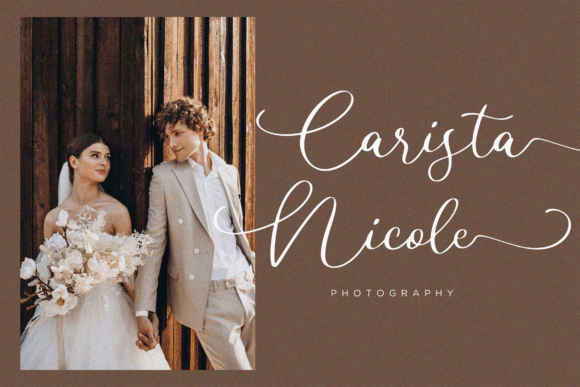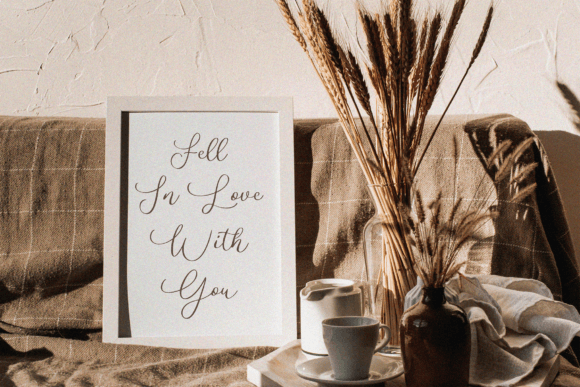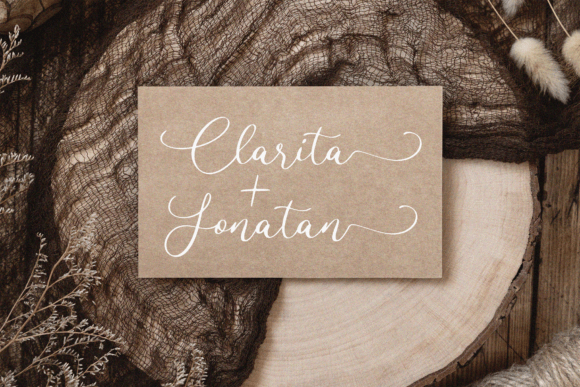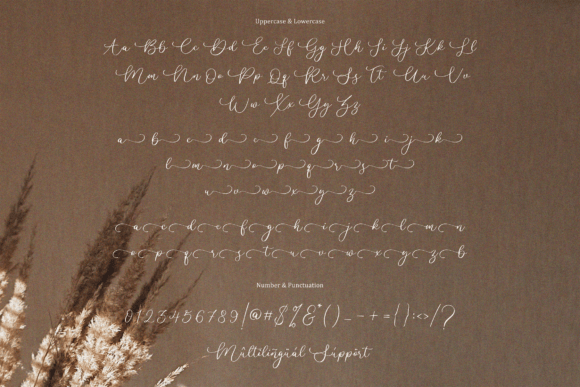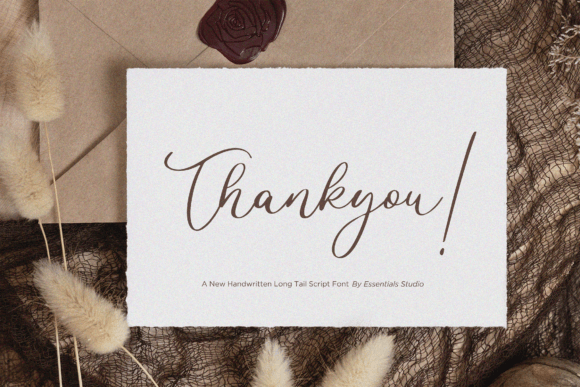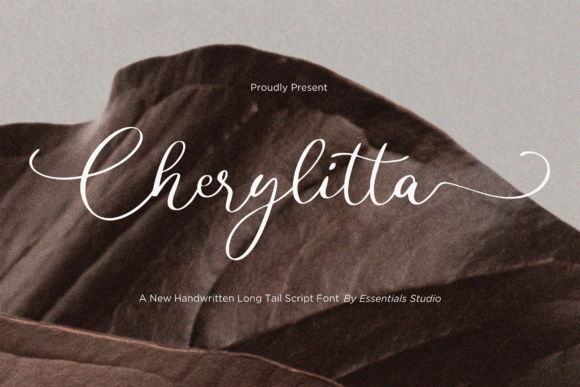
Introducing Cherylitta Font: Elevate Your Designs with Modern Elegance
In the world of typography, a font can make all the difference in the success of a design project. Whether you’re a professional designer, crafty DIY enthusiast, or social media influencer, finding the right font can be a daunting task. That’s where Cherylitta Font comes in – a modern and long-tail script font designed to elevate your creative projects. In this article, we’ll dive into the features, benefits, and uses of Cherylitta Font, and explore how it can become your go-to choice for stunning designs.
What is Cherylitta Font?
Cherylitta Font is a beautiful, modern script font that exudes elegance and sophistication. Its unique, long-tail design makes it perfect for adding a touch of personality to your designs. With its clean lines, flowing curves, and exquisite ligatures, Cherylitta Font is sure to capture the attention of your audience. Whether you’re working on product packaging, branding projects, magazines, social media graphics, or wedding invitations, Cherylitta Font is the perfect choice.
Key Features of Cherylitta Font
- Modern and Long-Tail Script Font: Cherylitta Font boasts a fresh, contemporary design with a long-tail script style that’s perfect for making a statement.
- Multipurpose: Use Cherylitta Font for various design projects, including product packaging, branding, magazines, social media graphics, weddings, and more.
- Ease of Use: With Cherylitta Font, you can effortlessly add a touch of elegance to your designs, even if you’re not a professional designer.
Benefits of Using Cherylitta Font
So, why choose Cherylitta Font for your design projects? Here are just a few benefits:
- Stand Out from the Crowd: With Cherylitta Font, you can create unique and eye-catching designs that set you apart from the competition.
- Enhance Your Brand: Use Cherylitta Font to create a consistent brand image across all your marketing materials, from business cards to social media graphics.
- Easy to Read: The clean and flowing design of Cherylitta Font ensures that your text is easy to read, even at small sizes.
Use Cases for Cherylitta Font
Cherylitta Font is an incredibly versatile font that can be used in a wide range of design projects. Here are some ideas to get you started:
- Product Packaging: Add a touch of elegance to your product packaging with Cherylitta Font.
- Branding Projects: Use Cherylitta Font to create a consistent brand image across all your marketing materials.
- Magazines and Editorial Design: Cherylitta Font is perfect for magazine headlines, article titles, and other editorial design elements.
- Social Media Graphics: Create stunning social media graphics with Cherylitta Font, from Facebook posts to Instagram stories.
- Wedding Invitations: Make your wedding invitations truly special with Cherylitta Font.
| Font Name | Cherylitta Font |
| Author | Essentials Studio |
In conclusion, Cherylitta Font is a modern and elegant script font that’s perfect for designers, crafters, and DIY enthusiasts. With its unique long-tail design, PUA encoding, and multipurpose use, Cherylitta Font is sure to become your go-to choice for stunning designs. Whether you’re working on product packaging, branding projects, magazines, social media graphics, or wedding invitations, Cherylitta Font is the perfect choice. So why wait? Get creative with Cherylitta Font today and take your designs to the next level!